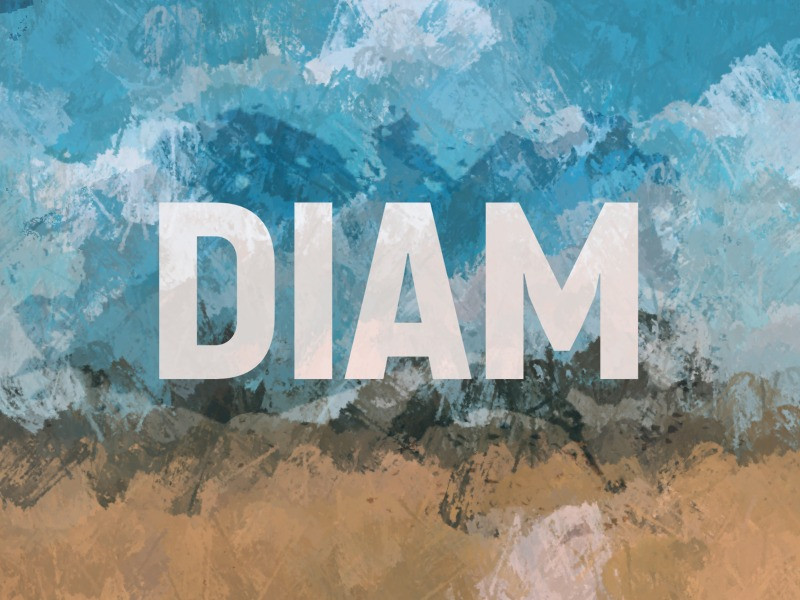
Diam Sans Serif Font
Diam, A sans serif font , It can easily be matched to an incredibly large set of projects, so add it to your creative ideas and notice how it makes them stand out!